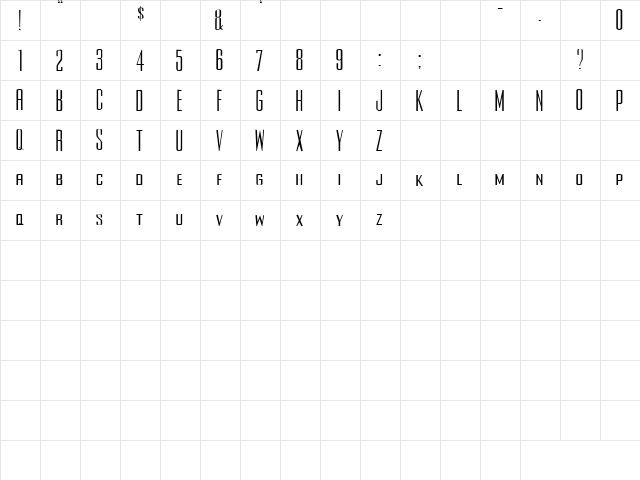
Joe 6 Regular Font Preview
Joe 6 Regular
Joe 6 Regular Font Details
Design Context for Joe 6 Typeface
Joe 6 offers clean, dependable letterforms without strong stylistic allegiance, making it a practical choice for designers who need flexibility.